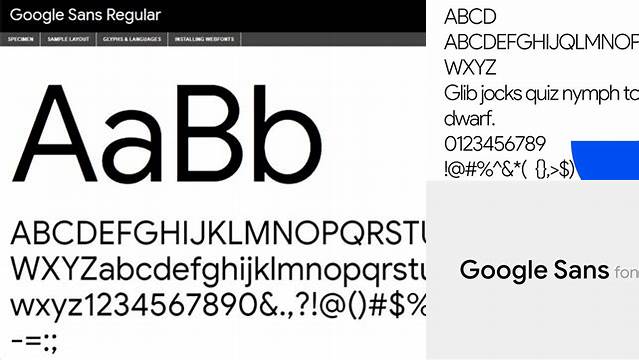
Google Sans, also known as Product Sans, is a typeface that has become synonymous with Google's brand identity. Its clean lines, geometric structure, and overall legibility make it a popular choice for user interfaces, websites, and branding materials. Originally designed for Google's logo, this font has since been embraced by designers and developers worldwide. In this comprehensive guide, we'll explore the history, characteristics, and availability of Google Sans, and provide you with resources for free download.
History and Evolution of Google Sans
The story of Google Sans begins with Google's rebranding efforts in 2015. Prior to this, the company used a custom typeface based on Catull, a serif font. As Google evolved, it sought a more modern and versatile typeface that could represent its innovative spirit. The design team, led by Tobias Frere-Jones, created Product Sans, a geometric sans-serif font that draws inspiration from typefaces like Futura and DIN. The new font was rolled out across Google's products and services, quickly becoming a recognizable element of the brand. Over the years, Google Sans has undergone subtle refinements to improve its readability and visual appeal. These updates have ensured that the font remains contemporary and effective in various design contexts. Its adaptability and clarity have made it a favorite among designers aiming for a clean, modern aesthetic. The impact of Google Sans extends beyond Google's own branding. Many other companies and organizations have adopted similar geometric sans-serif fonts to convey a sense of innovation and simplicity. This trend reflects the broader influence of Google's design choices on the industry. Google Sans has set a standard for modern typography, inspiring designers to prioritize legibility, clarity, and visual appeal in their work. The font's success demonstrates the power of thoughtful design in shaping brand perception and user experience. As Google continues to evolve, Google Sans will likely remain a key element of its identity, adapting and improving to meet the changing needs of the digital landscape. The history of Google Sans is a testament to the importance of typography in branding and communication. Its creation marked a significant shift in Google's visual identity, reflecting the company's growth and its commitment to innovation. The font's enduring popularity is a result of its careful design and its ability to convey a sense of modernity and clarity. For anyone interested in design and branding, the story of Google Sans offers valuable insights into the power of typography and its role in shaping perceptions.
Key Characteristics of Google Sans
Google Sans boasts several distinct characteristics that make it a versatile and appealing typeface for various applications. One of its most notable features is its geometric construction. The font is based on simple geometric shapes, such as circles and rectangles, which gives it a clean and modern appearance. This geometric structure also contributes to its legibility, making it easy to read in both print and digital formats. Another key characteristic of Google Sans is its uniform stroke weight. The letters have a consistent thickness, which further enhances its clarity and readability. This uniformity also creates a sense of balance and harmony, making the font visually pleasing. The x-height of Google Sans is relatively high, meaning that the lowercase letters are tall in relation to the uppercase letters. This high x-height improves readability, especially in body text, as it makes the lowercase letters more distinct and easier to recognize. Google Sans also features open apertures, which are the openings in letters like 'c', 's', and 'e'. These open apertures prevent the letters from appearing crowded or cramped, further enhancing readability. The font's letter spacing is carefully optimized to ensure that the letters are neither too close together nor too far apart. This balanced letter spacing contributes to the overall legibility and visual appeal of the typeface. In terms of style, Google Sans is a relatively neutral typeface. It doesn't have any strong stylistic quirks or embellishments, which makes it suitable for a wide range of design applications. Its neutrality allows it to blend seamlessly with other design elements, without overpowering them. Google Sans is available in a variety of weights, from light to bold. This range of weights provides designers with flexibility in creating visual hierarchy and emphasis in their designs. The different weights can be used to differentiate headings from body text, or to highlight important information. Overall, the key characteristics of Google Sans – its geometric construction, uniform stroke weight, high x-height, open apertures, balanced letter spacing, and neutrality – make it a versatile and highly legible typeface. These features contribute to its popularity and its widespread use in various design contexts. Whether you're designing a website, creating a logo, or writing body text, Google Sans offers a clean and modern aesthetic that can enhance the overall visual appeal of your project.
Alternatives to Google Sans
If you're unable to obtain Google Sans directly or are looking for similar fonts with different nuances, several excellent alternatives are available. These fonts capture the essence of Google Sans while offering their own unique characteristics. Montserrat is a popular choice, known for its clean, modern appearance and geometric design. Created by Julieta Ulanovsky, this font is widely used in web design and branding. Its versatility and readability make it a strong substitute for Google Sans. Another great alternative is Lato, designed by Łukasz Dziedzic. Lato features semi-rounded details, giving it a warmer and more friendly feel compared to the stark geometry of Google Sans. Lato's excellent legibility makes it suitable for both body text and headlines. Open Sans, created by Steve Matteson, is another widely used font known for its neutral yet friendly appearance. Its open forms and upright stress make it highly readable on screens, making it an excellent choice for web and mobile applications. Open Sans is a versatile font that works well in a variety of design contexts. Roboto, as mentioned earlier, is the default font for Android and Google's other products. Designed by Christian Robertson, Roboto has a dual nature, featuring both mechanical and geometric forms. Its smooth curves and open forms make it highly legible and suitable for a wide range of applications. Nunito Sans, designed by Jacques Le Bailly, is a well-balanced and modern sans-serif font with rounded terminals. Its friendly and approachable appearance makes it a great choice for projects that require a softer touch. Nunito Sans is available in a variety of weights, providing flexibility in design. Raleway, designed by Matt McInerney, is an elegant sans-serif font with a slightly more sophisticated appearance than Google Sans. Its thin strokes and geometric forms make it suitable for headlines, logos, and other display purposes. Cabin, designed by Impallari Type, is a humanist sans-serif font with a slightly condensed design. Its clean lines and balanced proportions make it highly readable and suitable for both body text and headlines. When choosing an alternative to Google Sans, consider the specific needs of your project. Think about the overall tone and message you want to convey, and select a font that aligns with those goals. Experiment with different fonts and weights to find the perfect fit for your design. By exploring these alternatives, you can find a font that captures the essence of Google Sans while adding its own unique flavor to your project. Whether you prioritize legibility, warmth, or sophistication, there's a sans-serif font out there that will meet your needs and elevate your design.